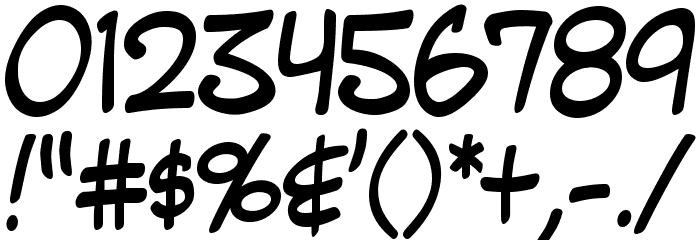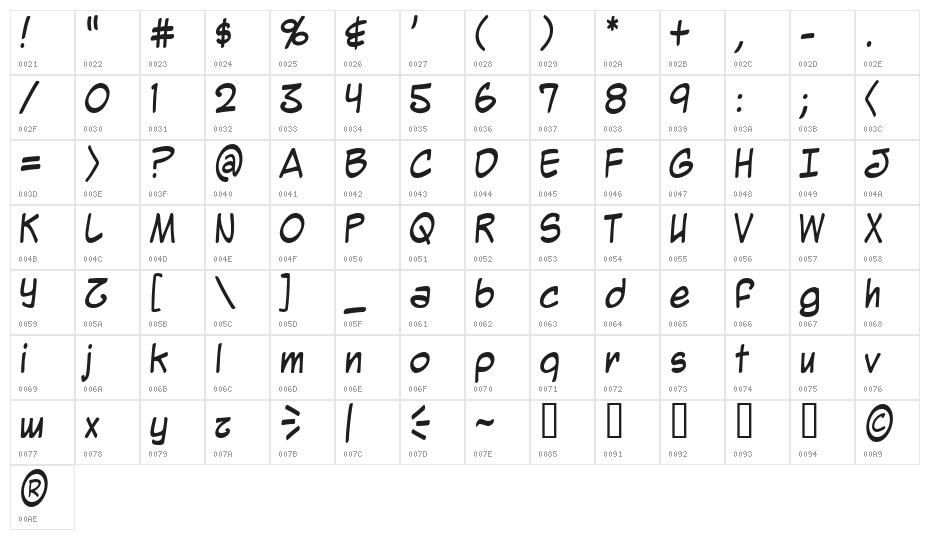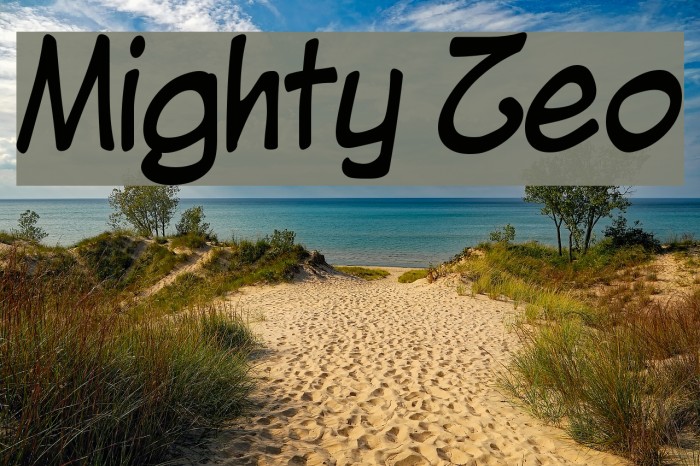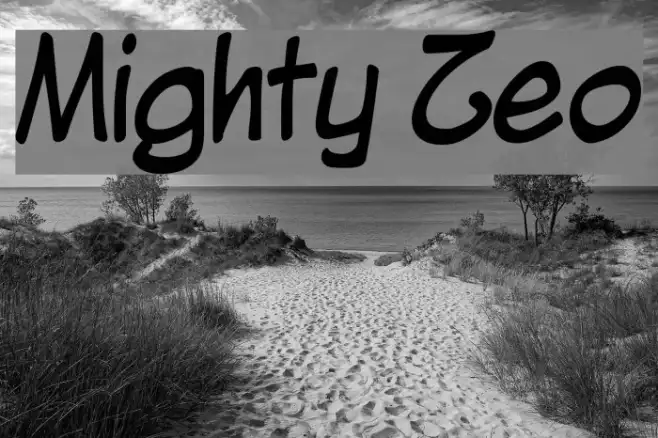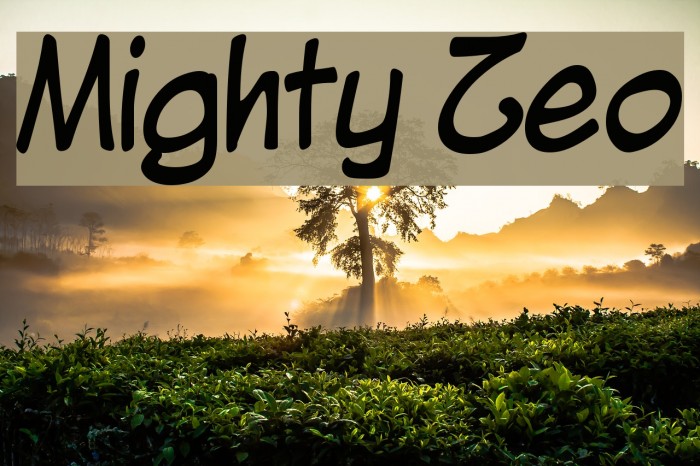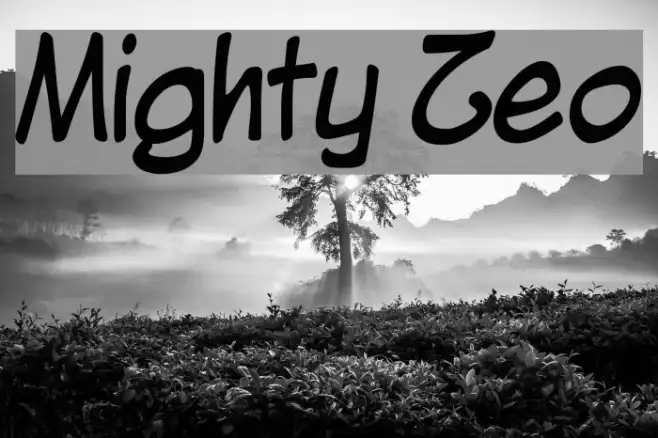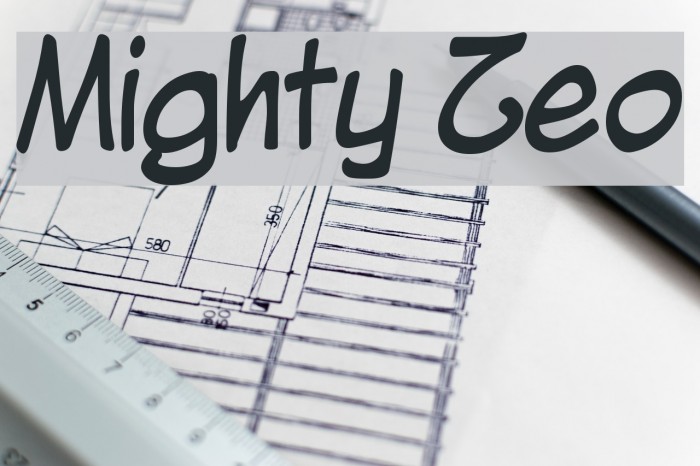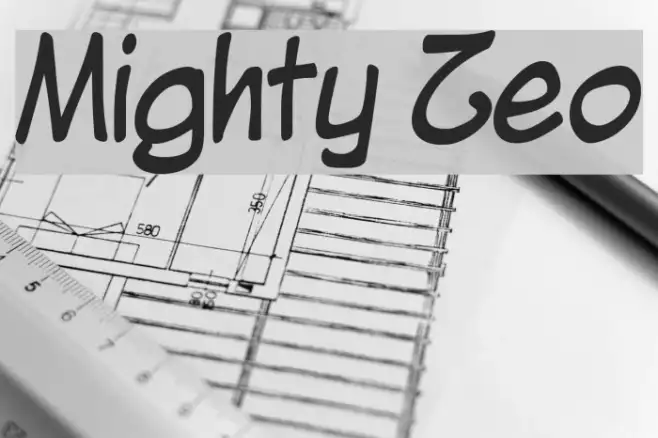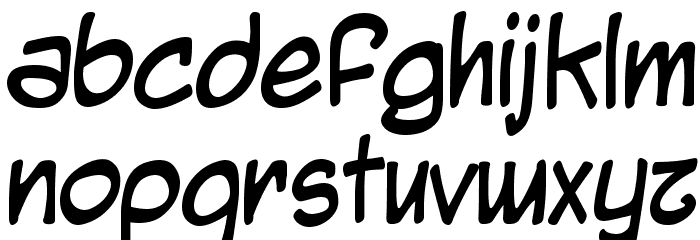
Mighty Zeo Font
Mighty Zeo Description
This playful and energetic font features a bold, handwritten style with smooth curves and a slightly slanted orientation. The characters are rounded and full, giving a sense of friendliness and approachability. The uppercase letters maintain a consistent height, while the lowercase letters exhibit a dynamic flow, enhancing the casual aesthetic. Numbers and special characters are designed with the same lively spirit, ensuring a cohesive look across all text. The font's design is perfect for projects that require a personal touch, such as invitations, greeting cards, or playful branding.
| Proposed Projects | Ideal for invitations, greeting cards, playful branding, and children's books. |